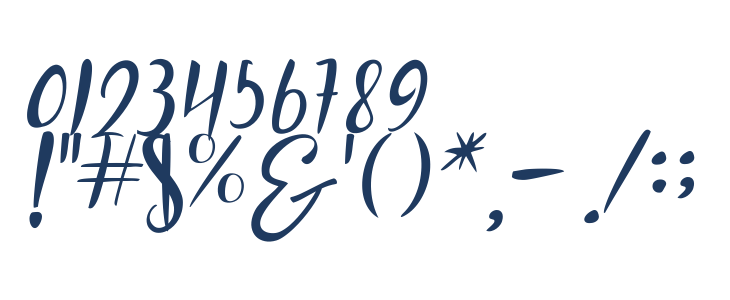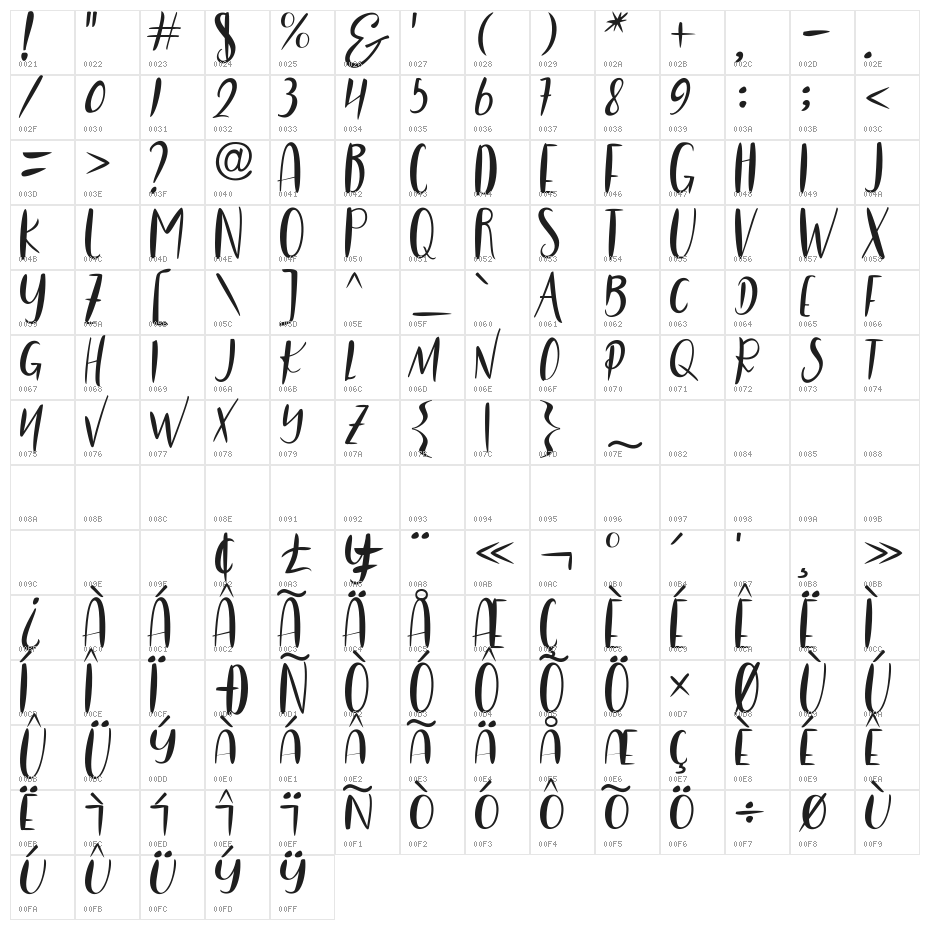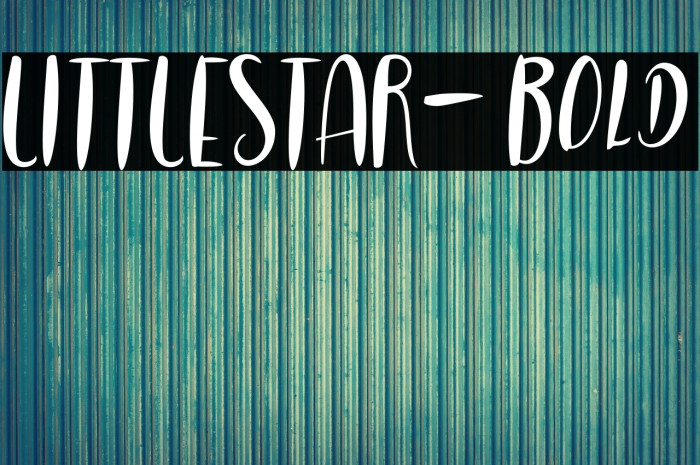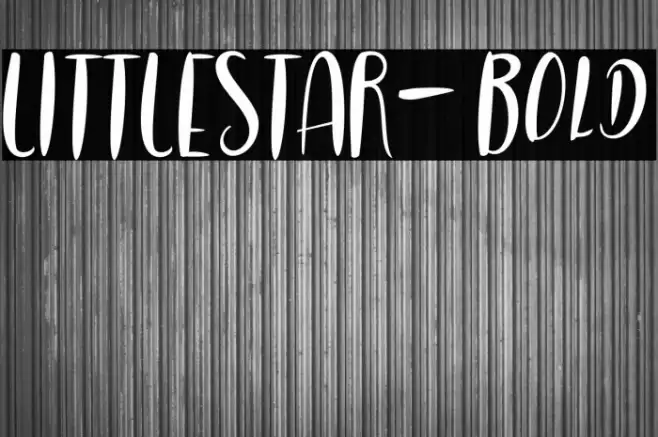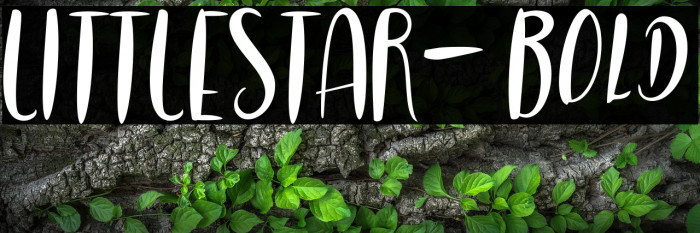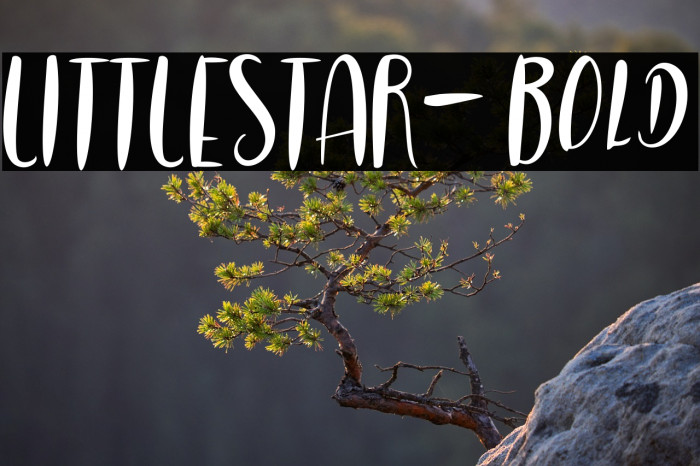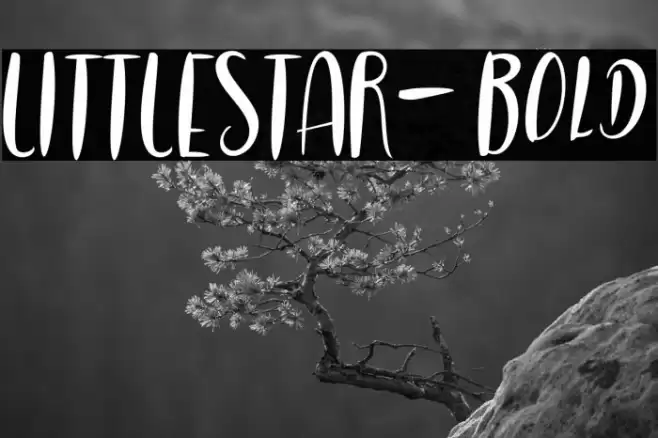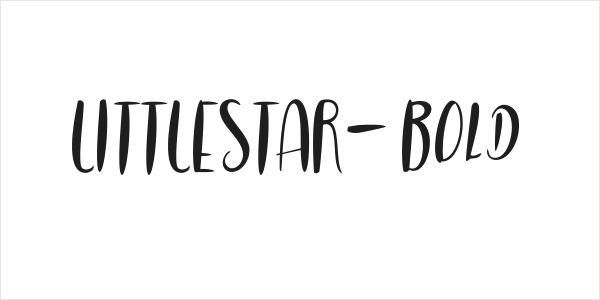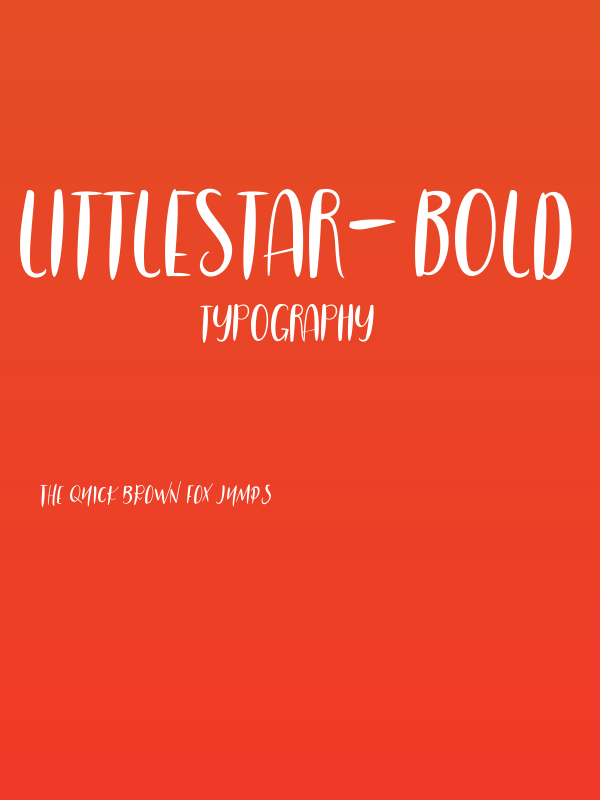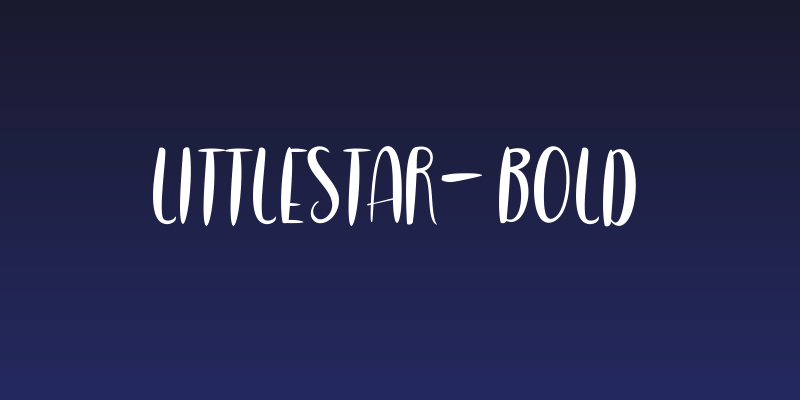
LITTLESTAR-Bold Font
LITTLESTAR-Bold Description
This font features a dynamic and energetic style with a handwritten appearance. The characters are bold and slightly slanted, giving them a sense of movement and flair. The strokes vary in thickness, adding a playful and artistic touch. The uppercase and lowercase letters maintain a consistent style, with elongated forms and a casual, informal vibe. The numerals and special characters are designed to match the overall aesthetic, making them suitable for creative and expressive projects.
| Proposed Projects | Ideal for greeting cards, invitations, posters, and branding materials that require a personal and artistic touch. |